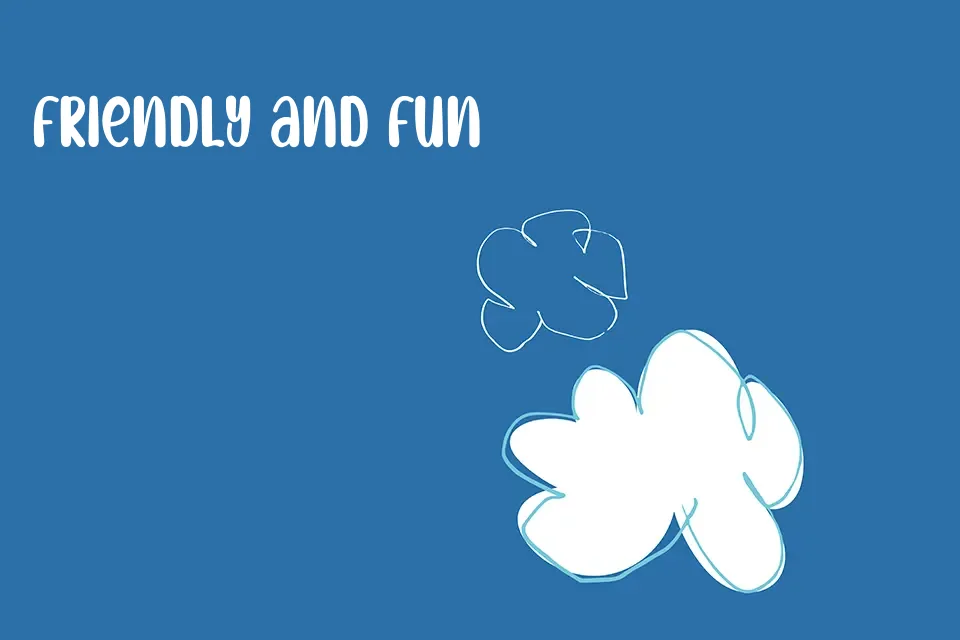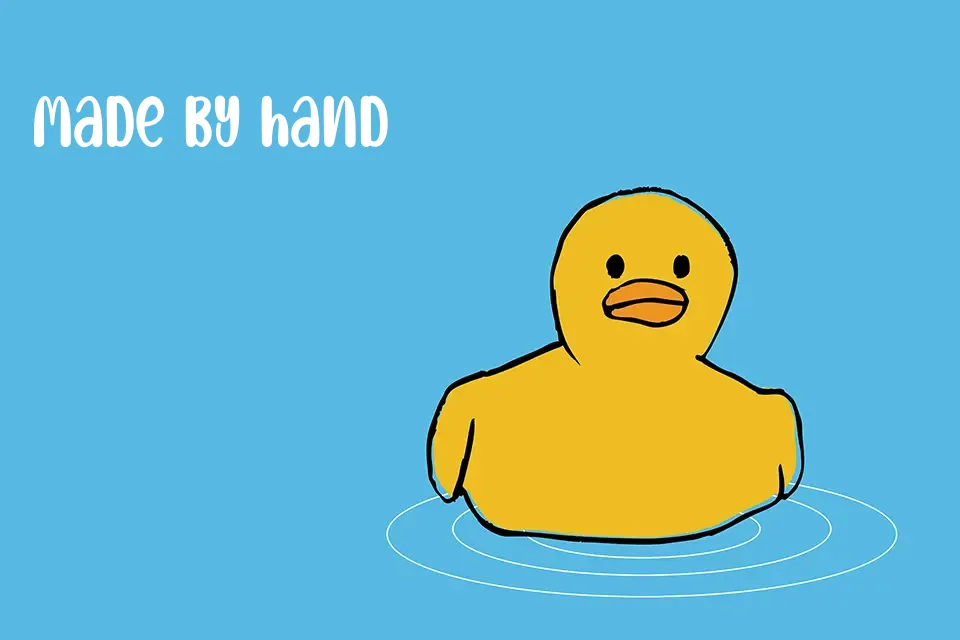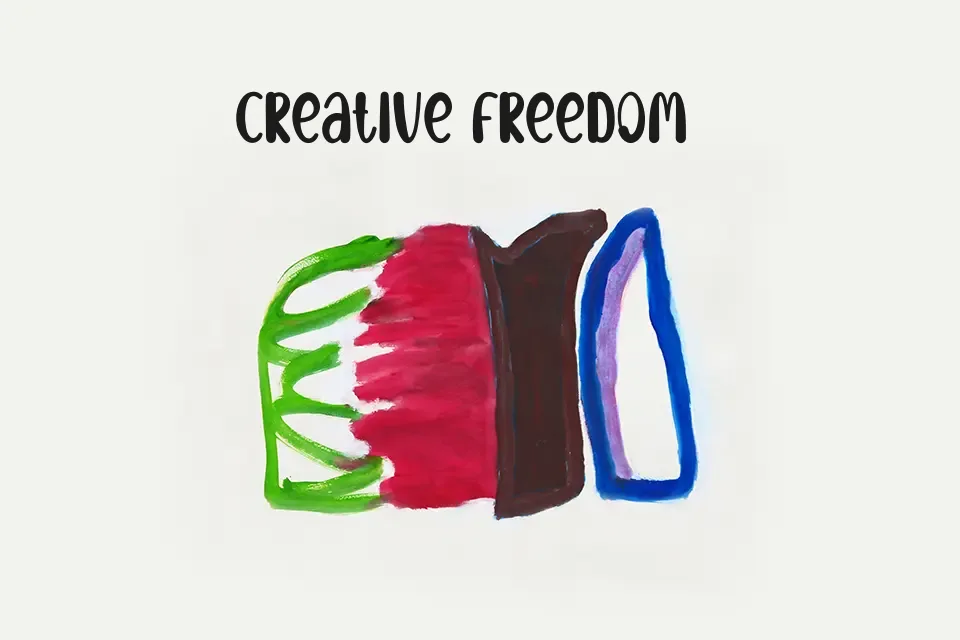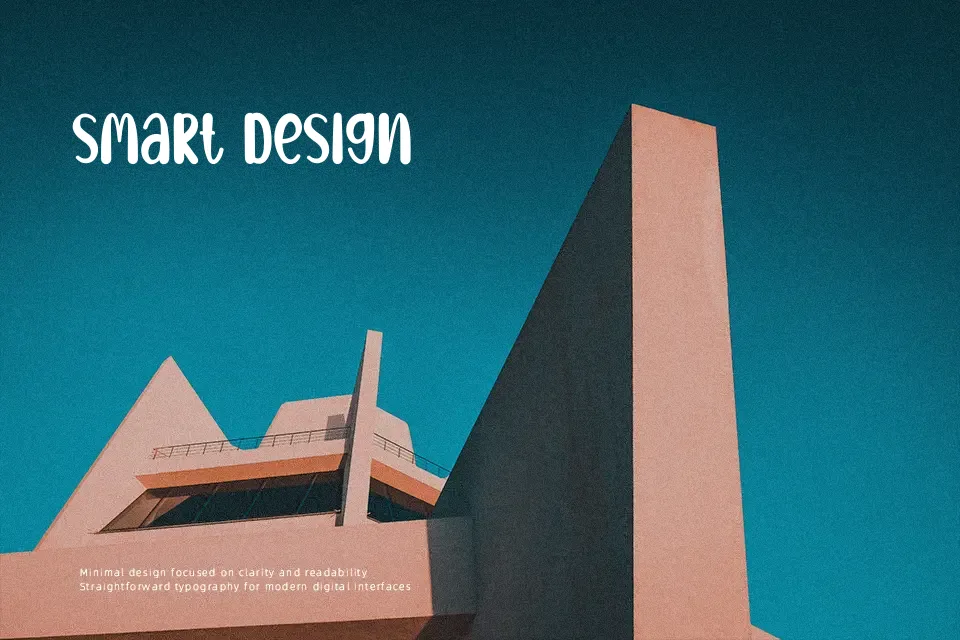
Recend Font
Designed by Andi Moz
A whimsical party invitation immediately sets a joyful tone when utilizing Recend Font. The letterforms display a bouncy, casual rhythm with rounded terminals and unpredictable baseline alignment that perfectly captures a handcrafted aesthetic. Generous counter spaces maintain clarity across medium display sizes, while the thick, marker-like strokes ensure excellent visibility in headlines and poster designs. Because the character spacing is somewhat relaxed, the typeface handles brief, energetic messaging beautifully. However, the exaggerated proportions and playful structure become distracting in long paragraphs, making it less suitable for continuous reading. The organic, friendly curves ultimately perform best when adding a personal, charming touch to creative layouts.
children’s book titles
festive greeting cards
casual apparel graphics
party invitations
continuous body text
corporate annual reports
financial spreadsheets
Perfect for headline, invitation, and kids, with a cute and cartoon style.